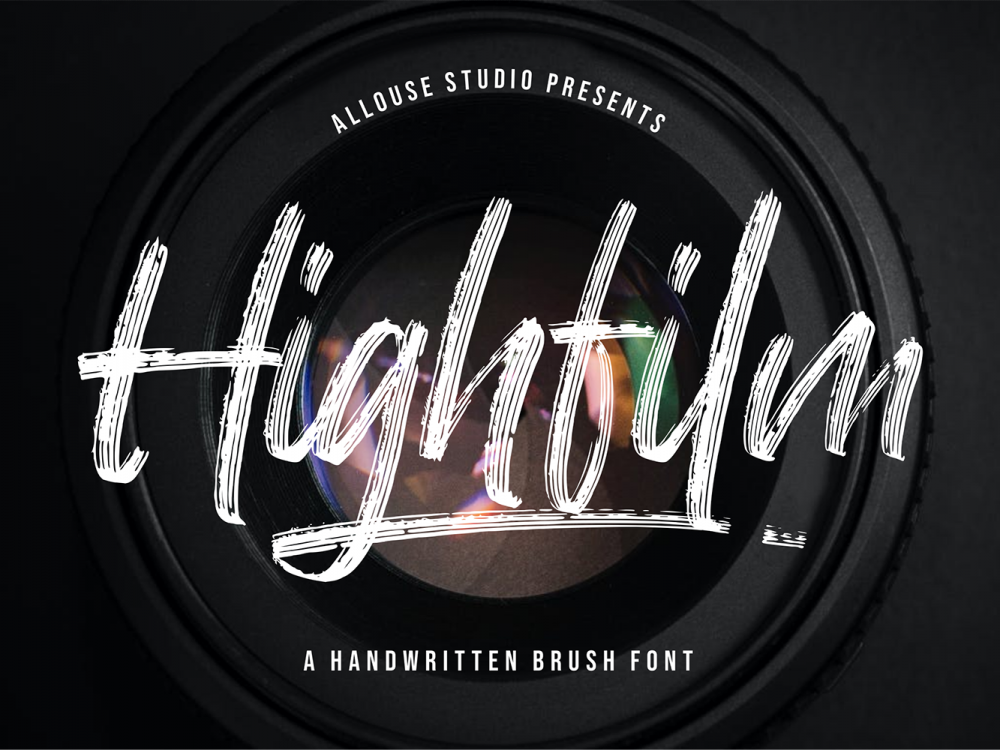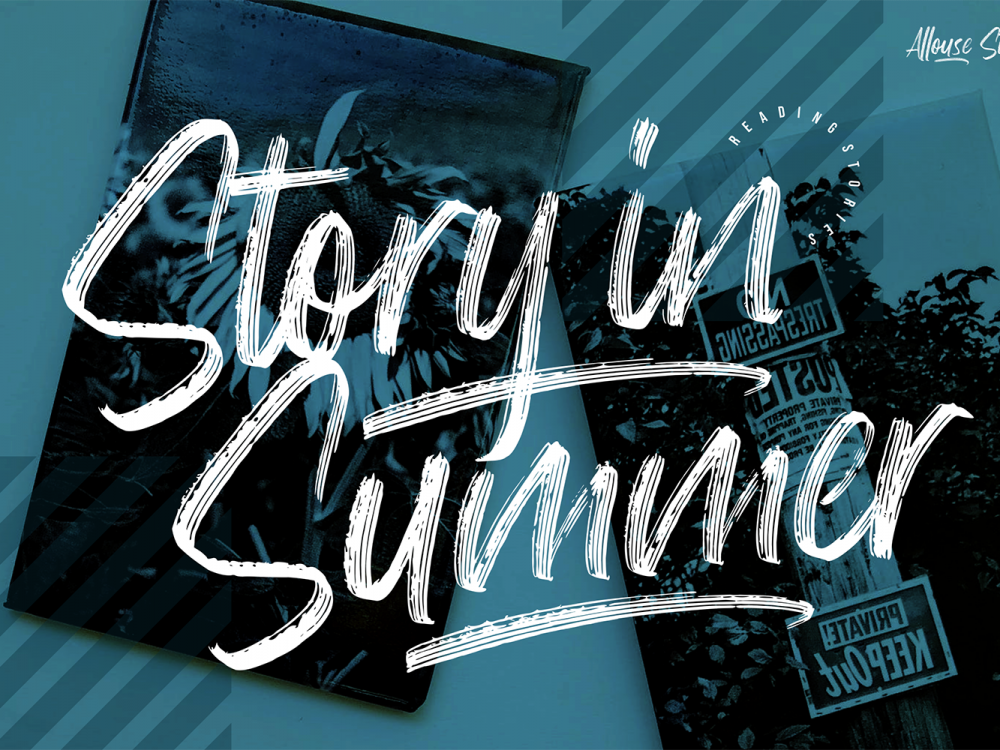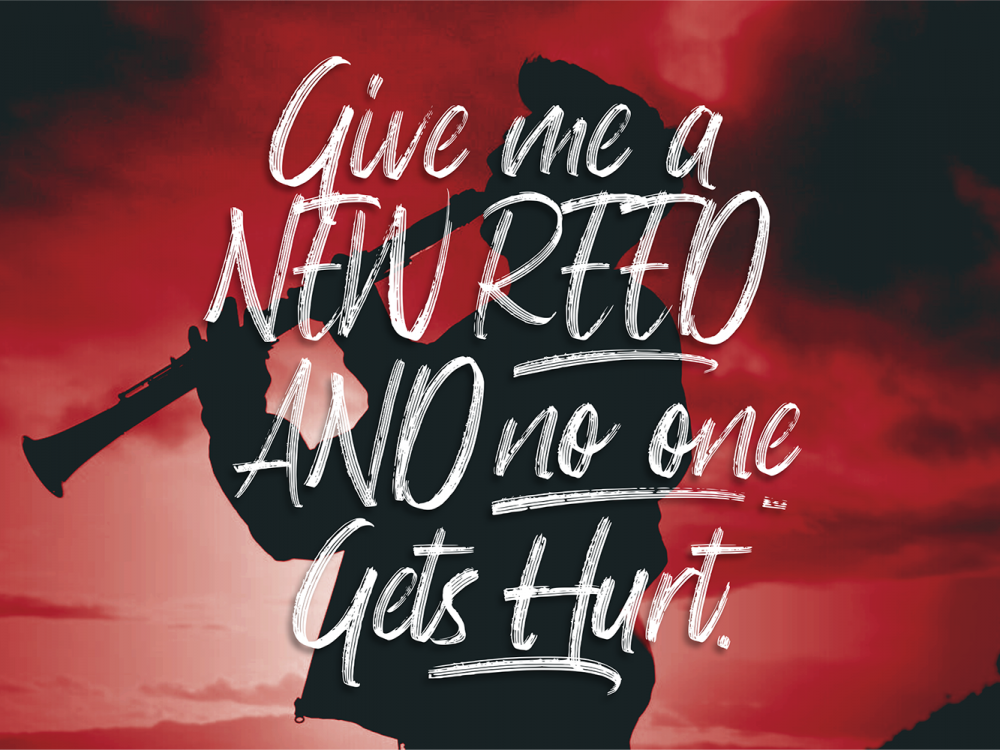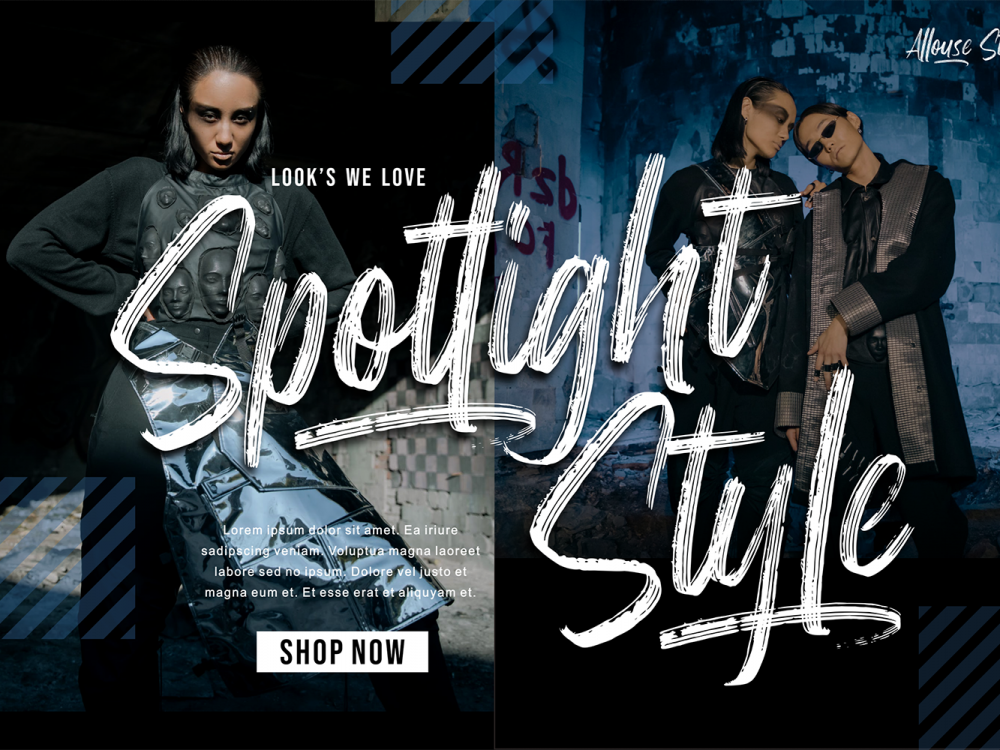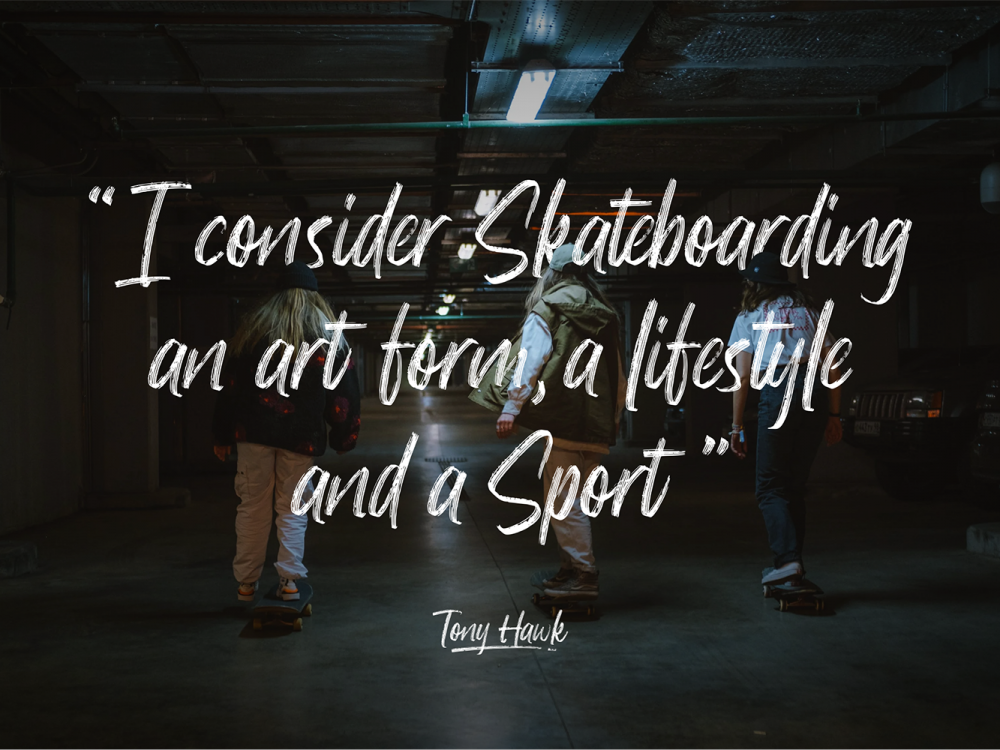
Highfilm Free Font
Highfilm Free Font is an interesting typeface that mimics writing with a brush and has an elegant style. This font is very suitable for creating various design projects that require a handwritten font. These can be posters, cards, invitations, flyers, prints, and much more. If you like it don’t forget to check out the full version.